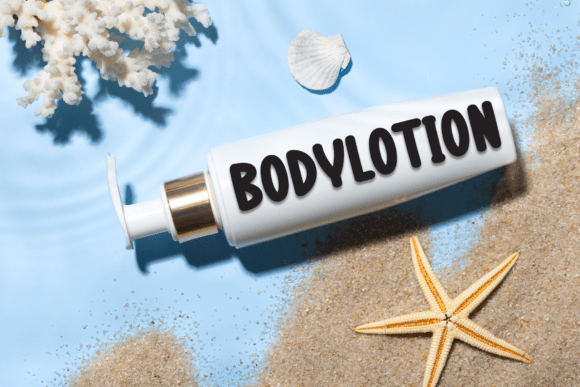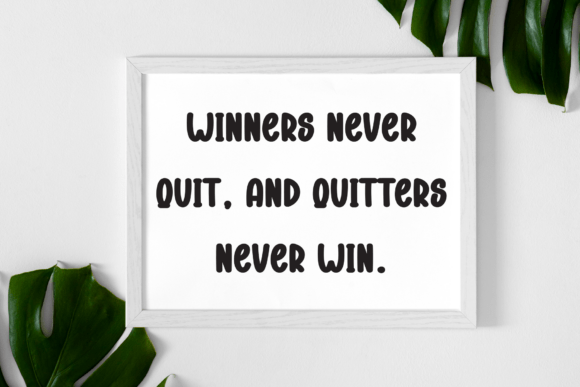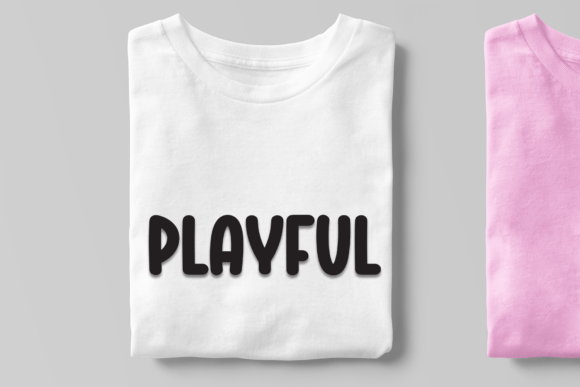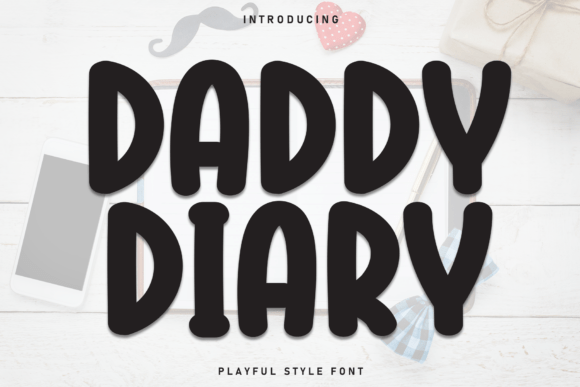
Introduction to Daddy Diary Font
Daddy Diary is a soft, chunky, and playful font full of warmth and charm.
Its rounded edges and bold appearance make it ideal for children’s books, greeting cards, nursery prints, or DIY crafts It’s a font that feels friendly and fun, perfect for personal and family-oriented designs.